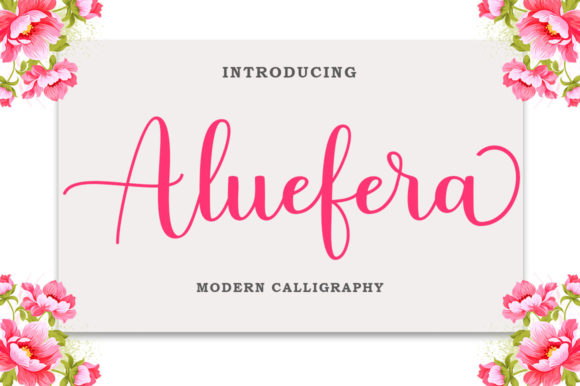
The Aluefera Script Font: A Chic Addition to Your Design Arsenal
Ah, the elusive perfect font. You know, that one font that makes your design project go from meh to mesmerizing. I’ve been there, done that, and got the t-shirt (which, by the way, was designed with a fabulous font). As a designer, I’ve had my fair share of struggles finding the right font, especially when working on luxury-themed projects. That’s when I stumbled upon the Aluefera Script Font, and let me tell you, it’s been a game-changer.
My First Impressions: A Love Affair
I was working on a high-end branding project for a client who wanted a sophisticated, yet playful vibe. I tried a few fonts, but none seemed to capture the essence of luxury and whimsy I was going for. That’s when I discovered Aluefera Script, and it was love at first sight! This chic, whimsical, and beautiful script font has a way of adding a spark of luxury to any design project.
• ✨ Elegant and sophisticated, perfect for luxury-themed projects
• ✅ PUA encoded for easy access to amazing glyphs and ligatures
• 💫 Highly versatile, works well for branding, packaging, and digital designs
• 🎉 Beautifully crafted, with a unique and distinctive character
⚠️ While Aluefera Script is an amazing font, it’s not without its quirks. Some users might find that it can be a bit finicky when it comes to kerning and spacing, especially when using it for body text. However, with a little tweaking, it’s easy to get it looking perfect.
🤔 Another thing to keep in mind is that, due to its intricate design, Aluefera Script might not be the best choice for very small font sizes or low-resolution designs.
The Story Behind Aluefera Script: A Designer Inspiration
The story behind Aluefera Script is one of passion and dedication. While the actual designer is unknown, it’s clear that they poured their heart and soul into crafting this beautiful font. Whether inspired by luxury brands, high-end fashion, or simply a love of elegant typography, Aluefera Script is a true masterpiece.
A: PUA (Private Use Area) encoding allows designers to access a wide range of glyphs and ligatures, making it easier to create beautiful, unique designs.
Q: Is Aluefera Script suitable for body text?
A: While Aluefera Script is stunning, it’s primarily designed for display text. For body text, you may want to choose a font that’s more legible and easier to read.